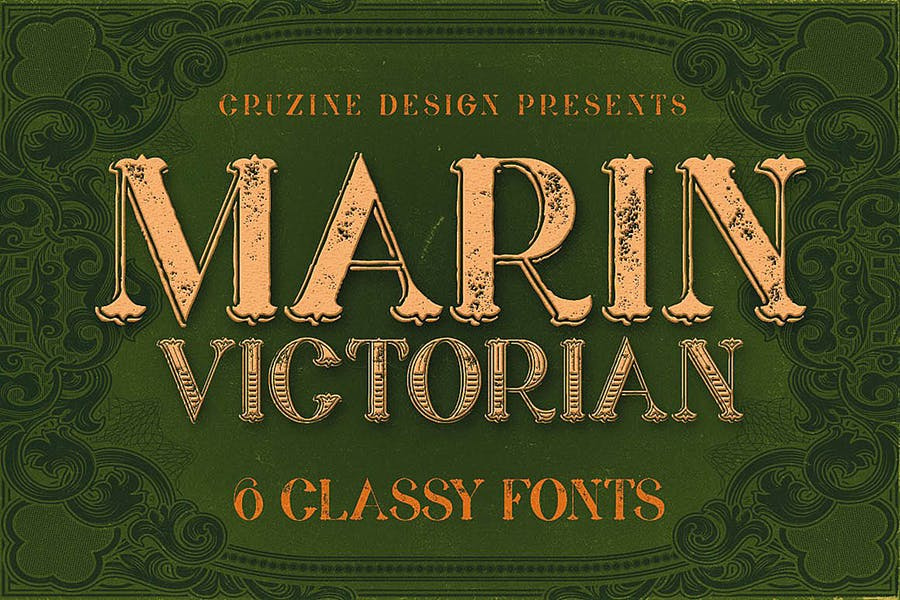
Marin - Victorian Font
Marin - Victorian Font is perfect for historical museum displays, antique shop signage, vintage book covers, period theatrical productions, heritage hotel branding, Victorian-themed restaurants, classical wedding invitations, ornate greeting cards, traditional steampunk designs, and authentic period reproductions.
Marin - Victorian Font creates excitement because it masterfully captures the ornate elegance and sophisticated grandeur of the Victorian era with its elaborate letterforms and period-authentic character design. The font's intricate details and ceremonial styling instantly transport viewers to an age of refined opulence and cultural sophistication, making any brand appear historically distinguished and authentically Victorian. Its carefully crafted ornamental elements and aristocratic presence create an immediate sense of historical grandeur that captivates audiences seeking genuine period authenticity, cultural heritage, and products that celebrate the remarkable artistic achievements of Victorian design excellence.
The Marin - Victorian Font family includes multiple weights and styles: Regular, Bold, Light, Medium, Italic, Ornate, Condensed, Extended, Decorative, and Royal versions. Each variant preserves the font's signature Victorian character while offering different levels of ornate detail and period styling suitable for various historical and heritage applications.
This magnificent typeface brings the authentic splendor of Victorian typography into contemporary design projects with remarkable historical accuracy and period sophistication. Marin - Victorian Font Free Download provides heritage institutions and period enthusiasts with access to premium Victorian typography that embodies the genuine spirit of 19th-century design excellence and cultural refinement. The font's ornate beauty and historical authenticity make it ideal for organizations seeking to establish connections with Victorian heritage and period cultural values. Whether you're creating displays for historical museums, designing materials for period entertainment venues, developing branding for vintage-inspired luxury products, or producing content for cultural heritage organizations, this font delivers the authentic Victorian atmosphere that resonates with audiences seeking genuine historical experiences and cultural sophistication. Its versatile design ensures excellent performance across both scholarly publications and elegant period applications while maintaining the intricate character of original Victorian typography. The font excels in applications requiring historical credibility and period authenticity. Cultural professionals appreciate its ability to convey Victorian elegance while remaining highly functional for various educational materials and heritage interpretive displays. The comprehensive character set includes period-appropriate ornamental flourishes and extensive language support, making it perfect for international heritage institutions and global cultural organizations seeking to communicate authentic Victorian sophistication, historical accuracy, and period cultural excellence to diverse worldwide audiences who appreciate historical artistry, value cultural heritage, and seek genuine connections to the remarkable artistic achievements and sophisticated design traditions that defined the golden age of Victorian civilization and cultural refinement.